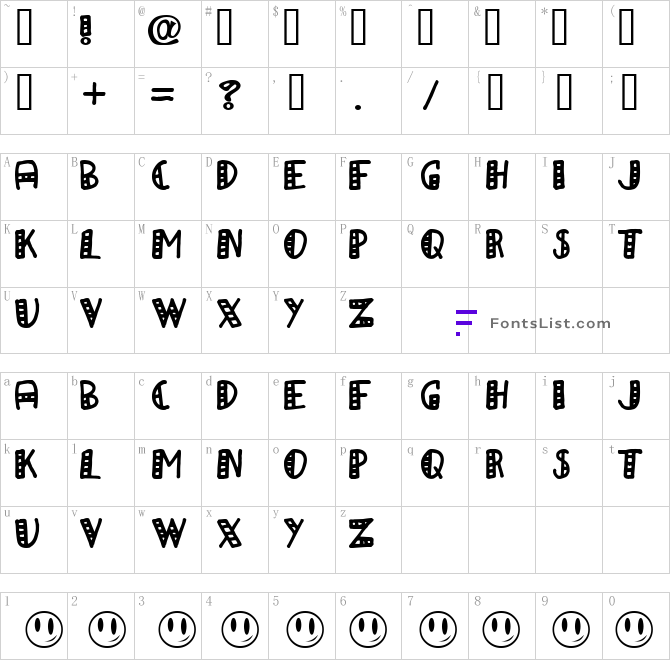
a-Papa.ttf is a very beautiful artistic font, a-Papa.ttf is widely used in the design and printing of various books and pictures,a-Papa.ttf has a strong visual impact,a-Papa.ttf is a commonly used font in newspapers, magazines and books, and is used in posters, e-commerce Poster design, store design, logo design, font design and other fields.a-Papa.